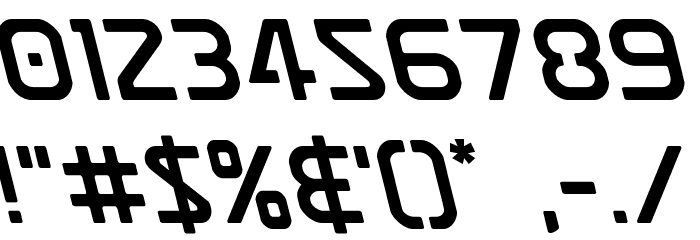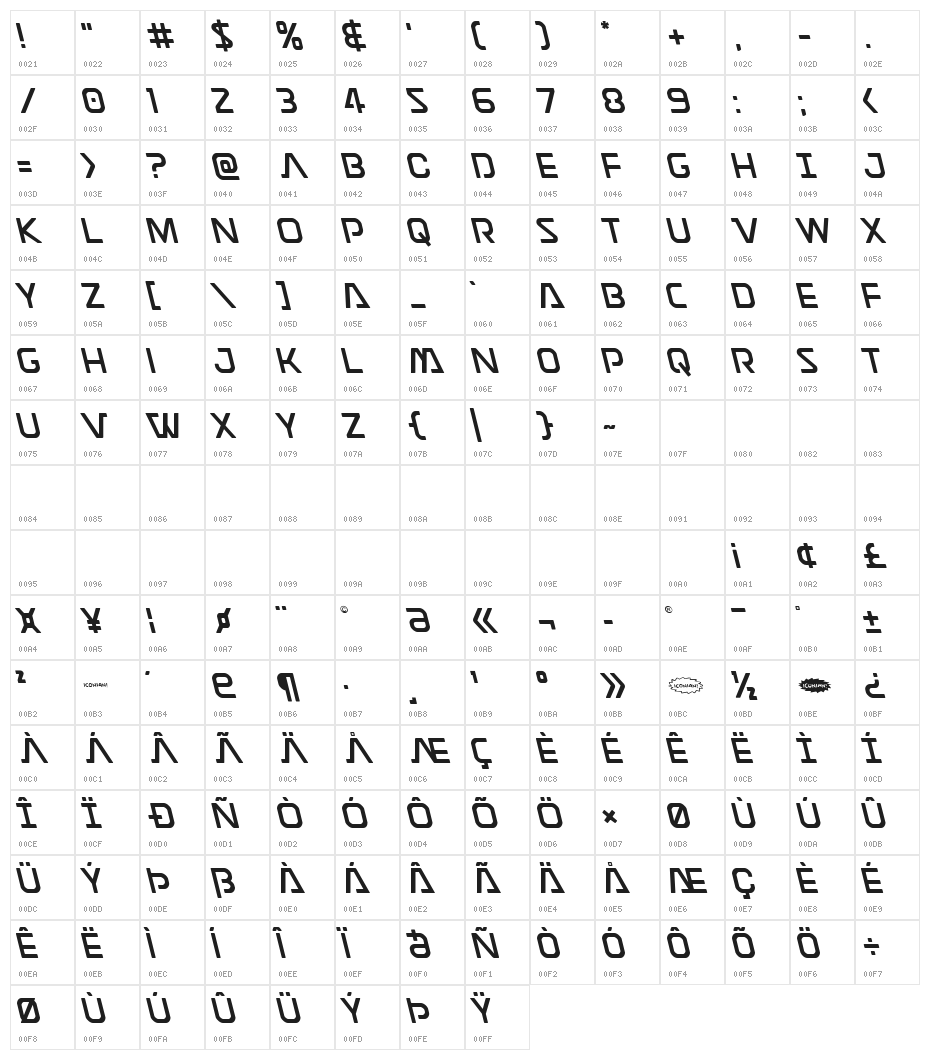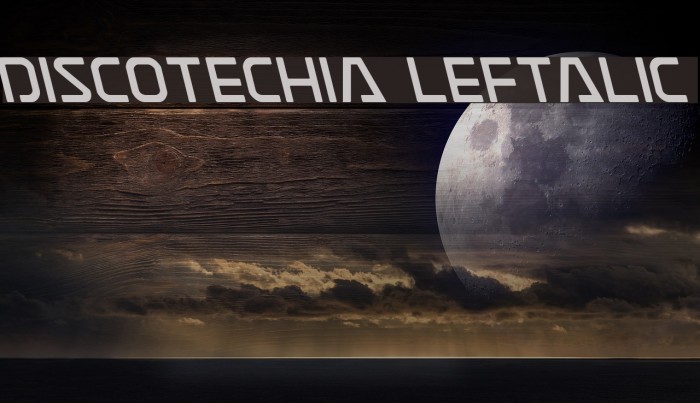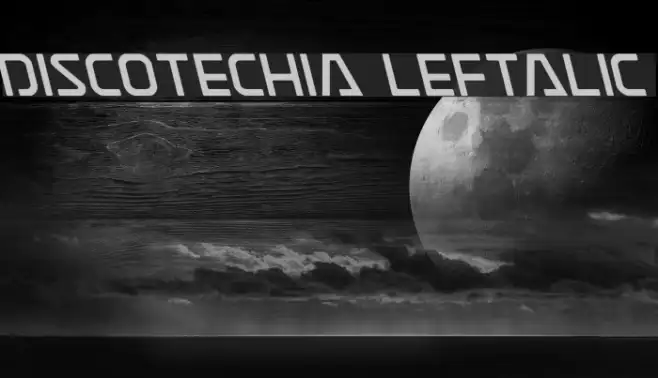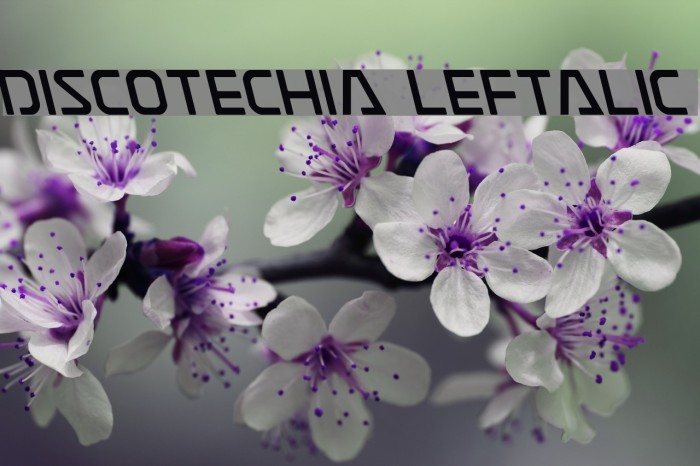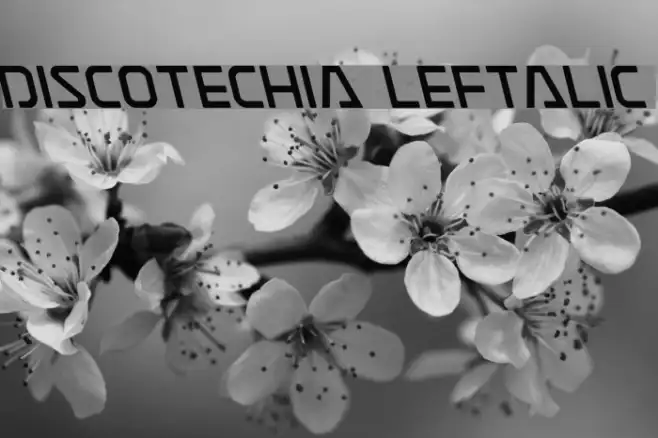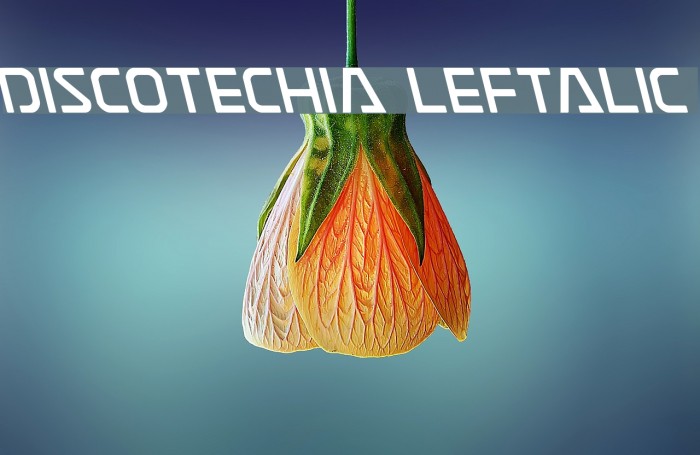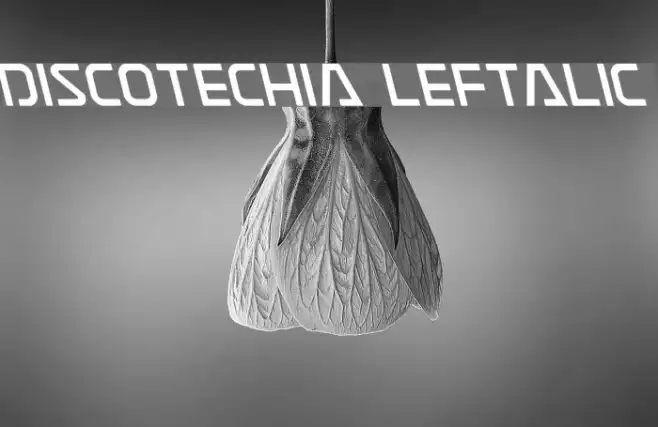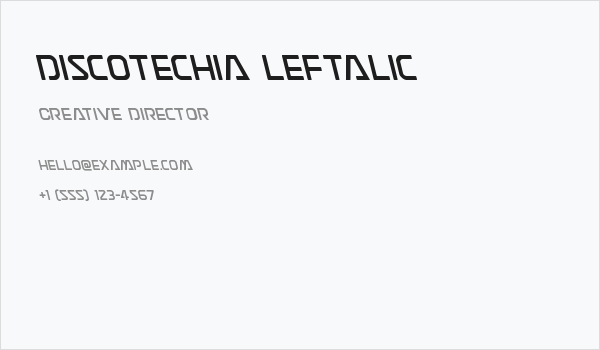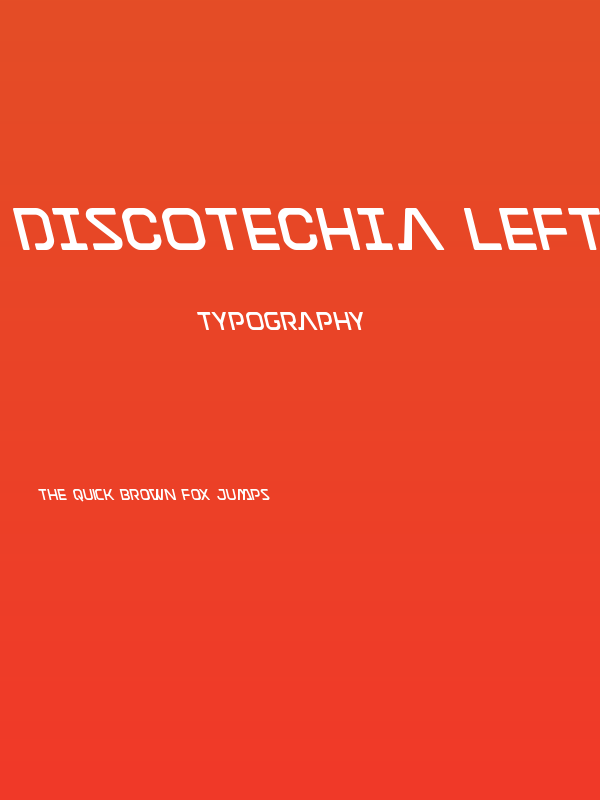
Discotechia Leftalic Font
Discotechia Leftalic Description
This font features a modern, geometric style with a distinct slant to the left, giving it a dynamic and futuristic appearance. The characters are bold and angular, with a consistent stroke width that maintains a clean and uniform look. The uppercase and lowercase letters share a similar structure, enhancing readability while maintaining a unique aesthetic. Numbers and special characters are designed to match the overall style, making them easily recognizable and cohesive with the rest of the font. The font's design is ideal for projects that require a contemporary and edgy feel.
| Use Case | Headlines, Logos, Digital Interfaces |
| Proposed Projects | Ideal for use in technology branding, modern advertising, digital interfaces, and futuristic design projects. |